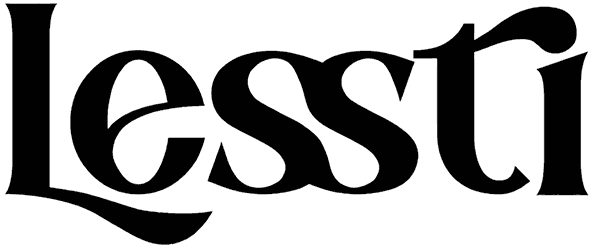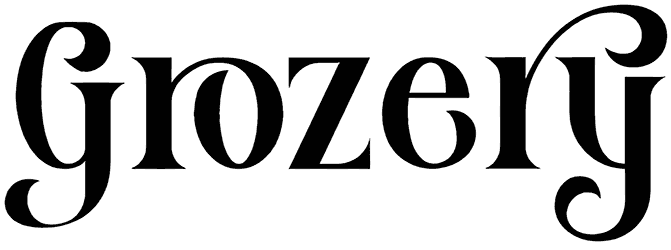
Walkester Font
Sometimes and surely, you should make your official documents stand out with a reliable and authentic design of a luxury serif font, due to the standard and neat design of its letterforms, Walkester can consistently be superior, so that anyone can profit from its power and solidity.